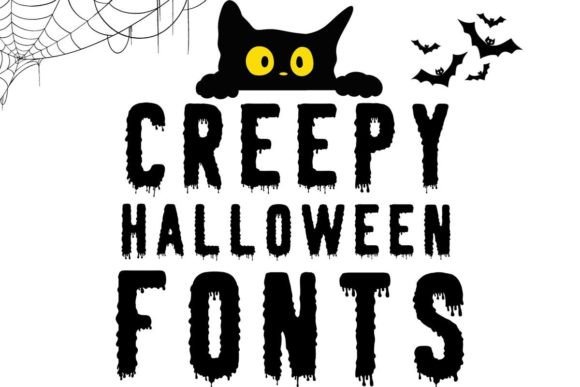
Creepy Halloween Font
Elevate your Halloween design projects with our exclusive Halloween Creepy Alphabet & Numbers Font Bundle. This chillingly creative font set is designed to infuse your designs with a spine-tingling atmosphere, making it perfect for invitations, posters, decorations, and more. With both OTF and TTF formats, along with bonus SVG, DXF, PNG, and EPS files, your design possibilities are endless.
Unleash a spine-chilling, Halloween-inspired atmosphere.
Ideal for Halloween party invites, eerie posters, and seasonal crafts.
Impeccable design detail for a truly haunting impact